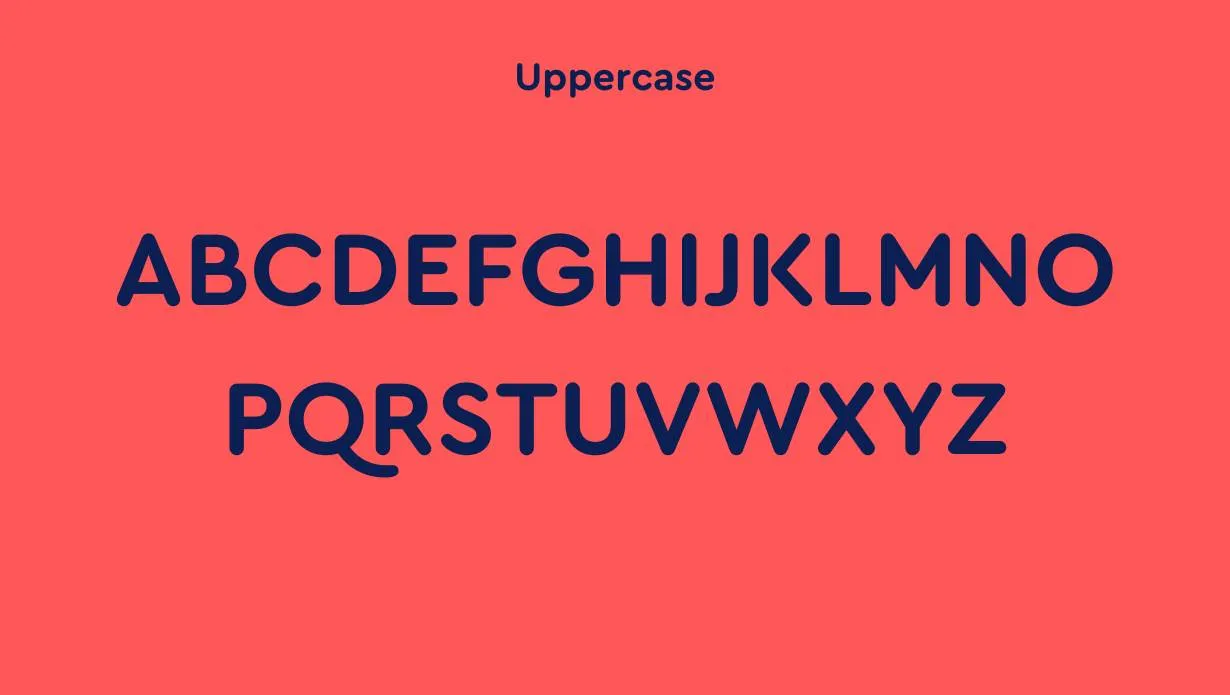
Cera Round Pro Font was designed by Jakob Runge and Lisa Fischbach in 2016. Its updated version is manufactured by TypeMates. This font has a very neat and clean look with high readability.